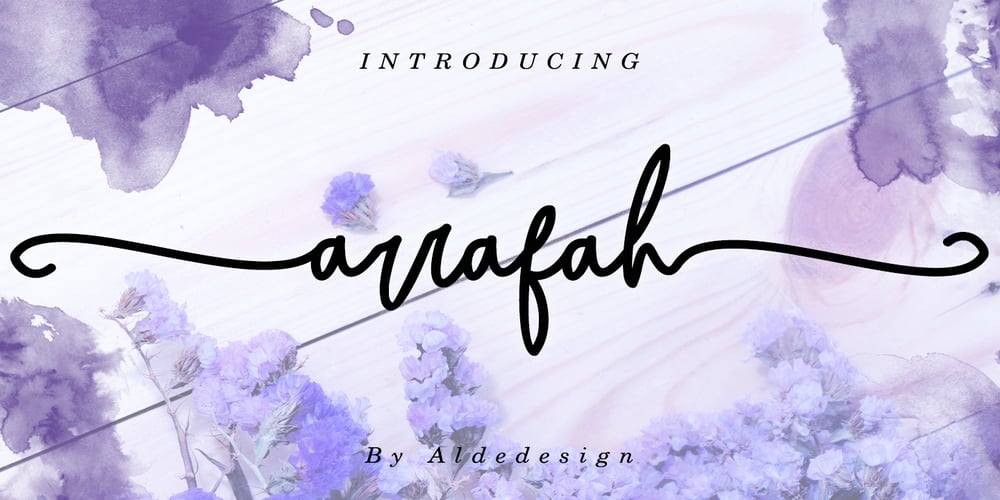
Arrafah Font Family was designed by Alde Saputro and published by Aldedesign. Arrafah contains 1 styles and family package options. Arrafah Script is a gorgeous script font with a luxurious and classy taste. It has a natural, yet elegant feel and is absolutely easy to use.Arrafah Script includes:-Stylish modern handwritten script-Special Ligatures-Multilingual Support